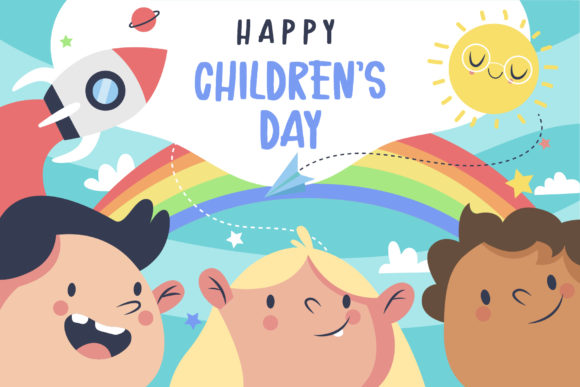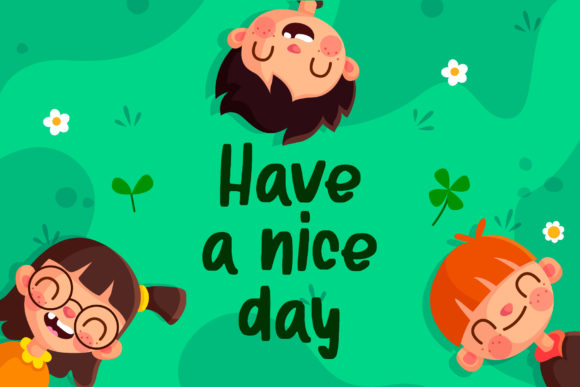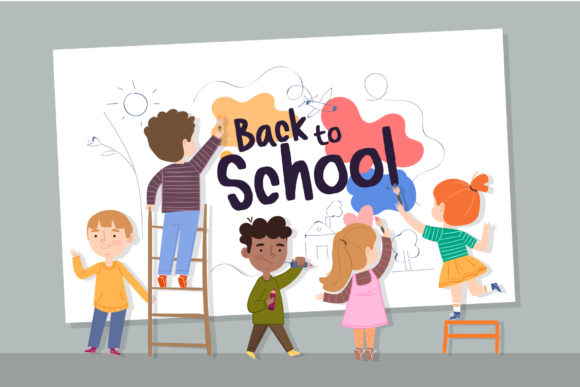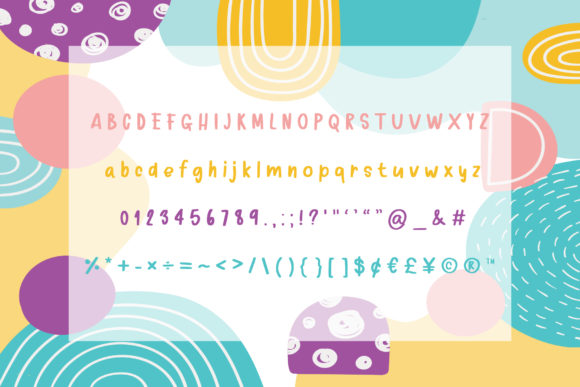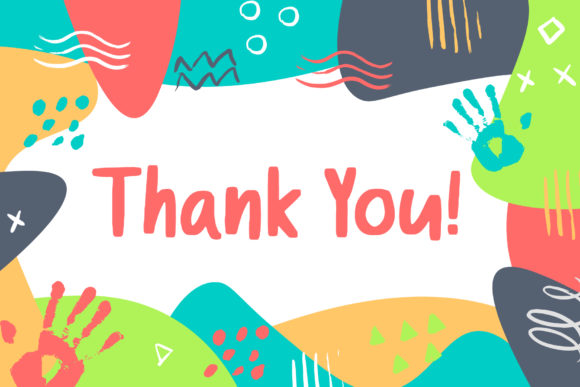
The Sweet Spot: Discovering the Charm of Cooper Font
I still remember the design project that led me to fall in love with the Cooper font. I was working on a whimsical branding project for a new bakery, and I was struggling to find the perfect handwritten font that would capture the warmth and friendliness of their brand. That’s when I stumbled upon Cooper, and it was like the design gods smiled upon me! ✨ Its natural, unique style instantly resonated with the bakery’s vibe, and I knew I had found the perfect fit.
So, what makes Cooper font so special? Let’s dive into the good stuff!
- ✅ Sweet and Friendly: Cooper’s handwritten style exudes warmth and approachability, making it perfect for designs that require a personal touch.
- ✨ Unique and Natural: Its distinctive character set ensures that your designs will stand out from the crowd.
- 🌈 Versatile: Cooper’s flexibility makes it suitable for a wide range of projects, from branding and packaging to invitations and social media graphics.
Now, let’s talk about a few minor quirks:
- 🤔 Limited Formality: Cooper’s friendly nature means it might not be the best fit for super formal or corporate designs.
- ⚠️ Glyph Overload: With so many amazing glyphs and alternates, it can be overwhelming to navigate – but trust me, it’s worth the exploration!
The Story Behind Cooper Font
Cooper font was designed with the intention of creating a friendly, approachable typeface that would bring warmth and personality to designs. Its creator aimed to craft a font that would feel like a handwritten note from a friend – and I think they succeeded! 💕
Q: What makes Cooper font so versatile?
A: Cooper’s unique blend of natural and playful elements makes it suitable for a wide range of designs, from branding and packaging to invitations and social media graphics.
Q: Is Cooper font suitable for body text?
A: While Cooper font is beautiful, it’s best suited for display text or short paragraphs. For longer body text, you may want to consider a more traditional typeface.